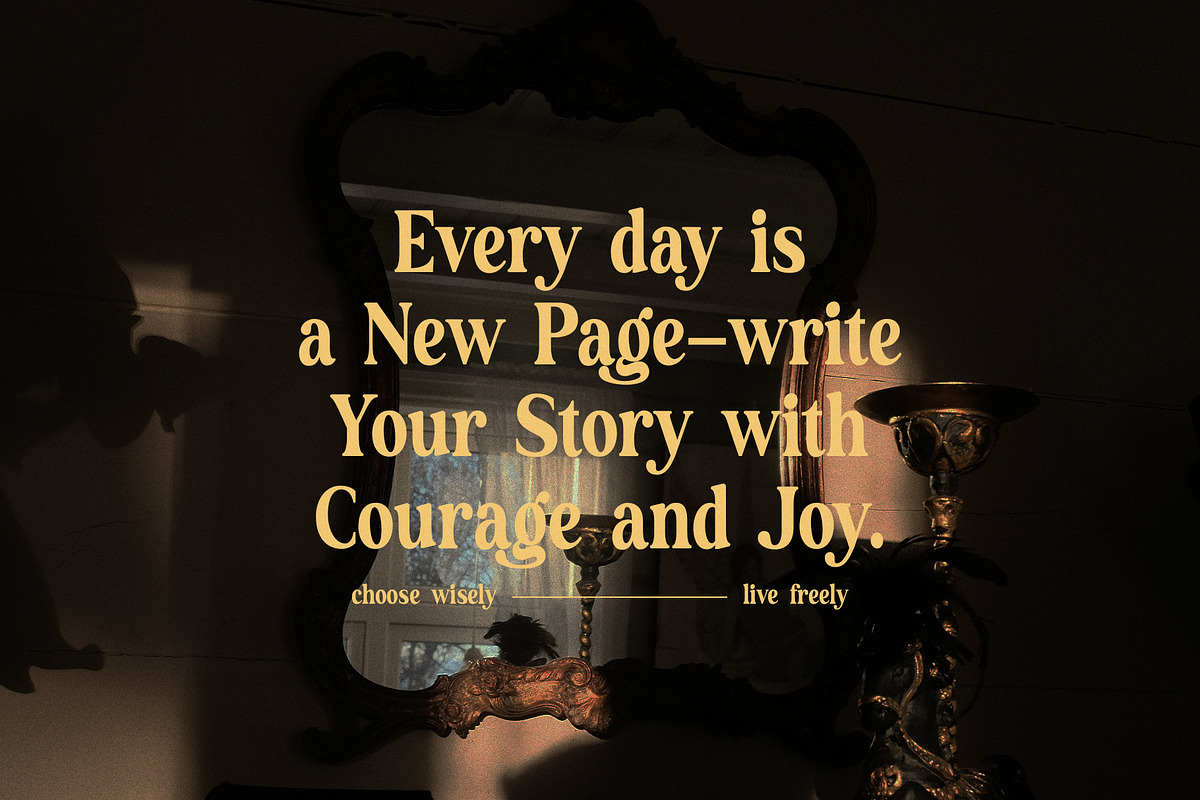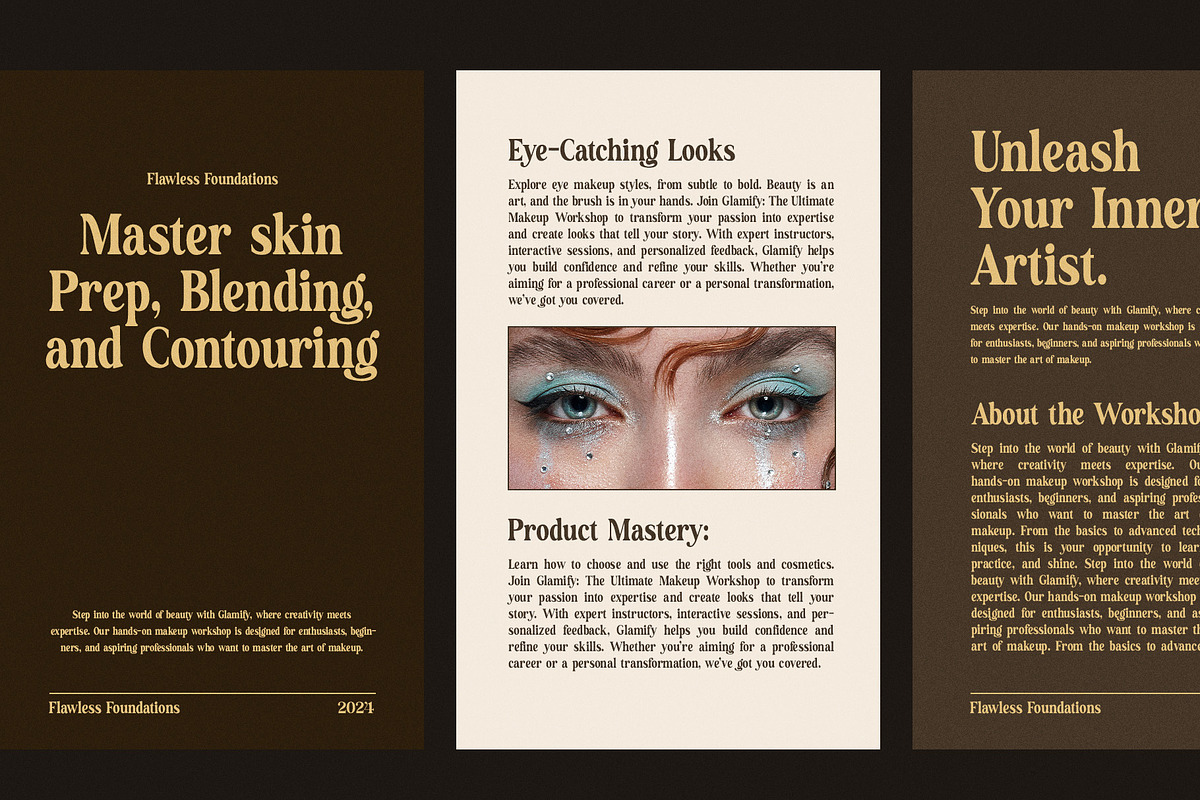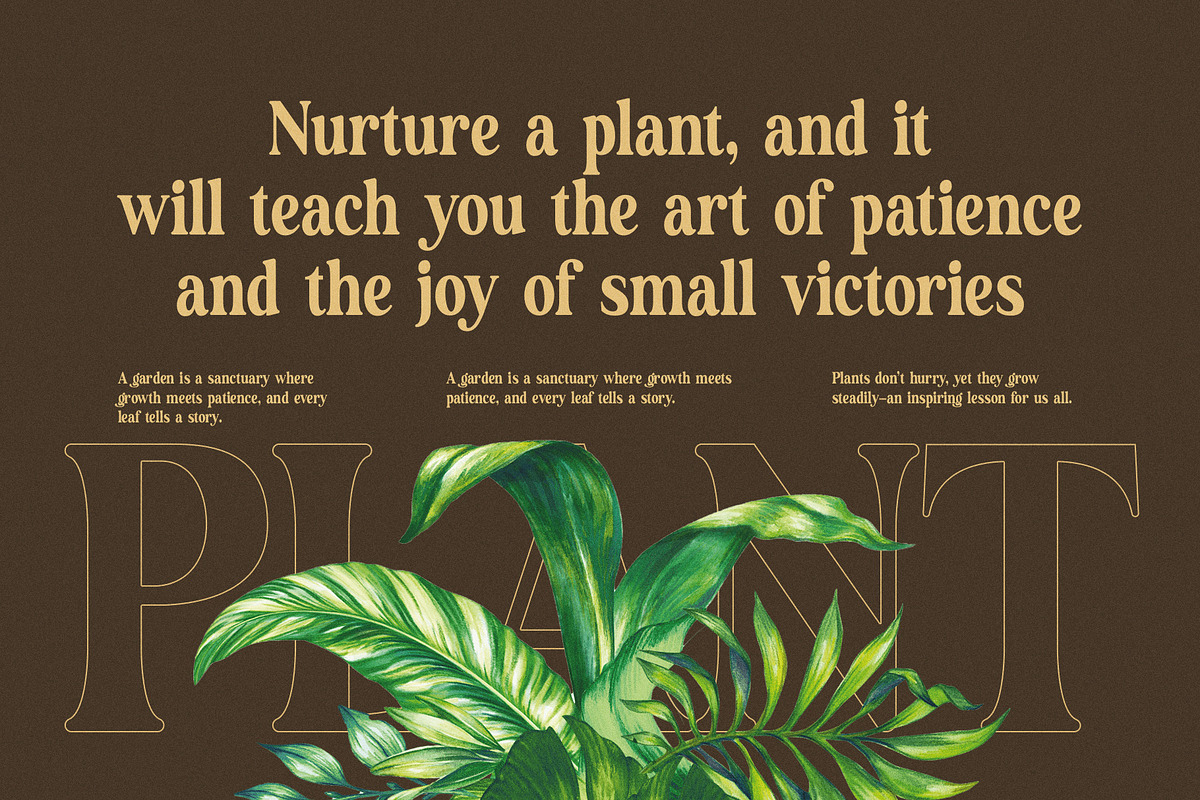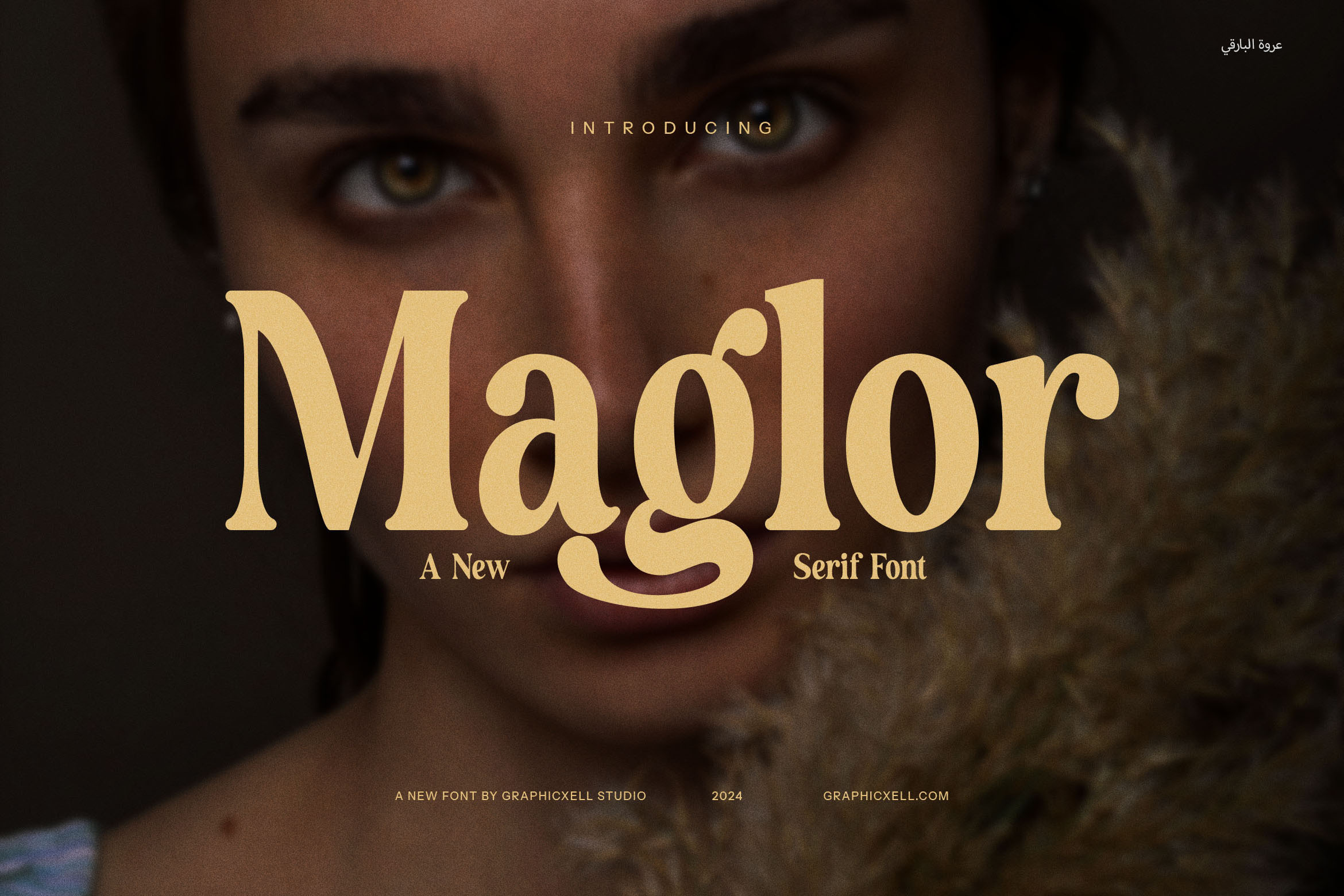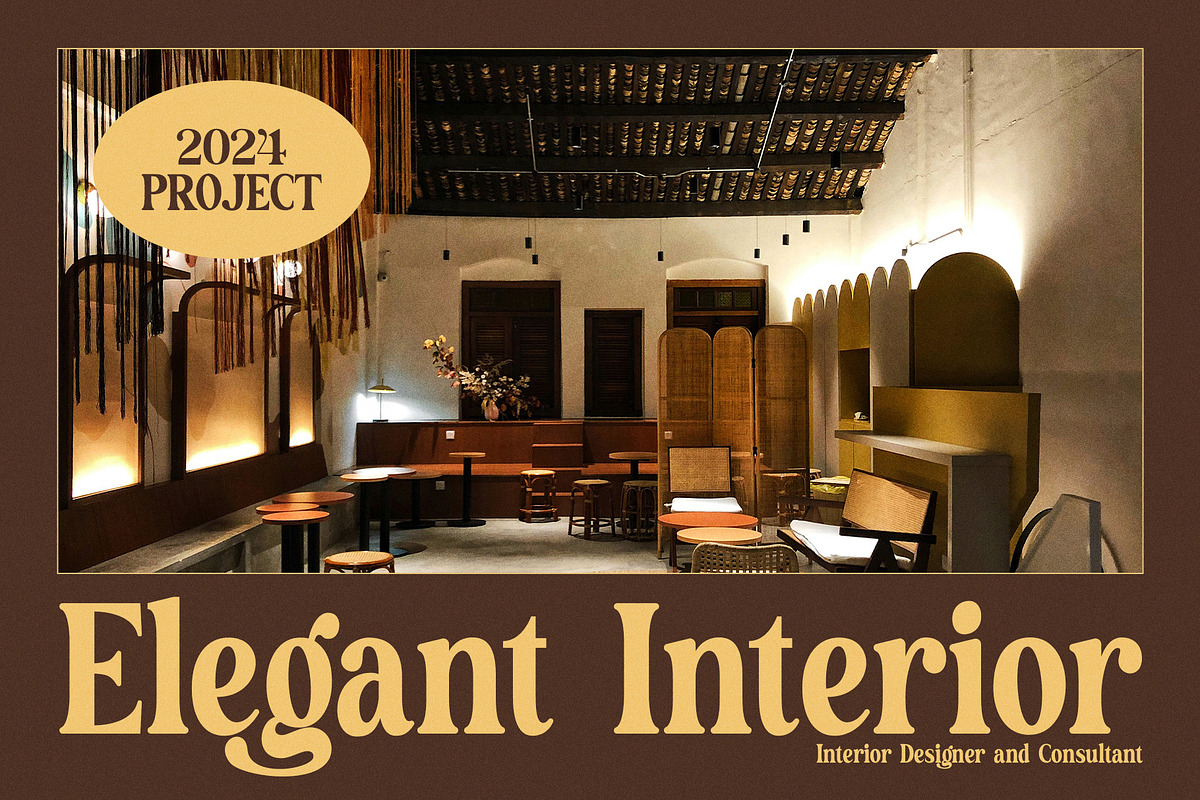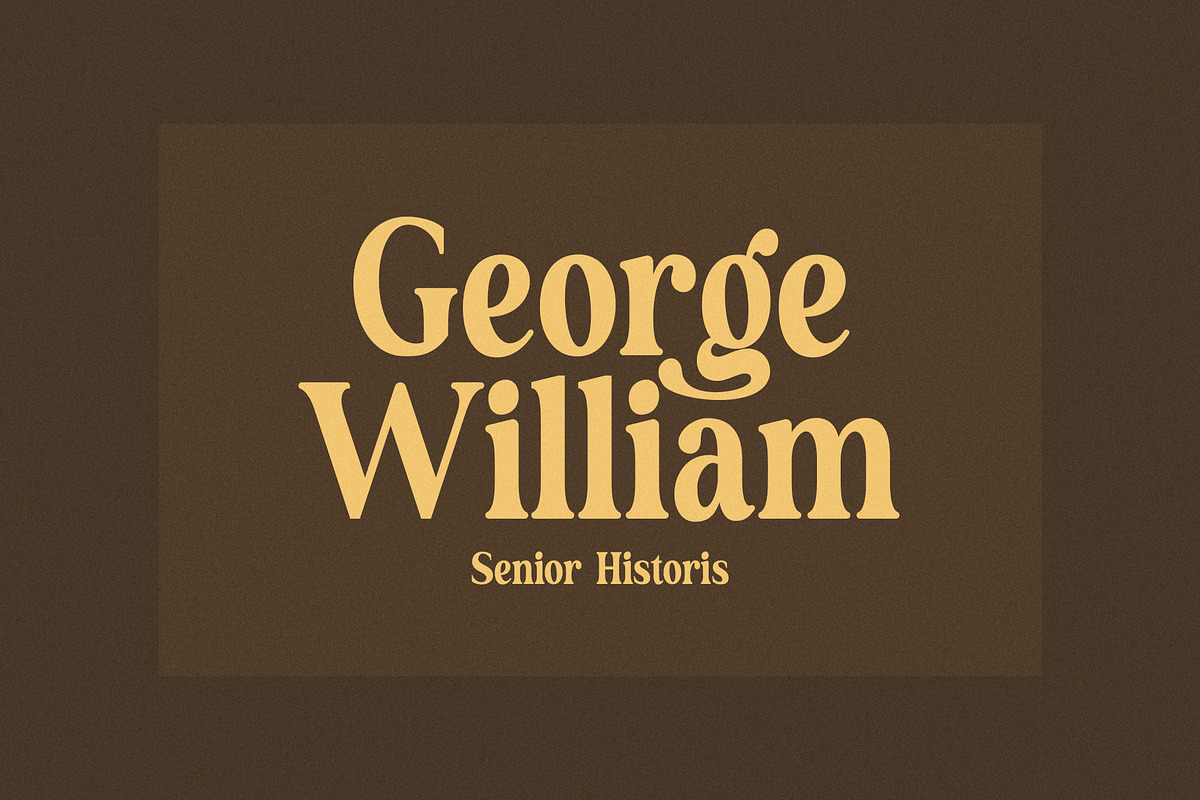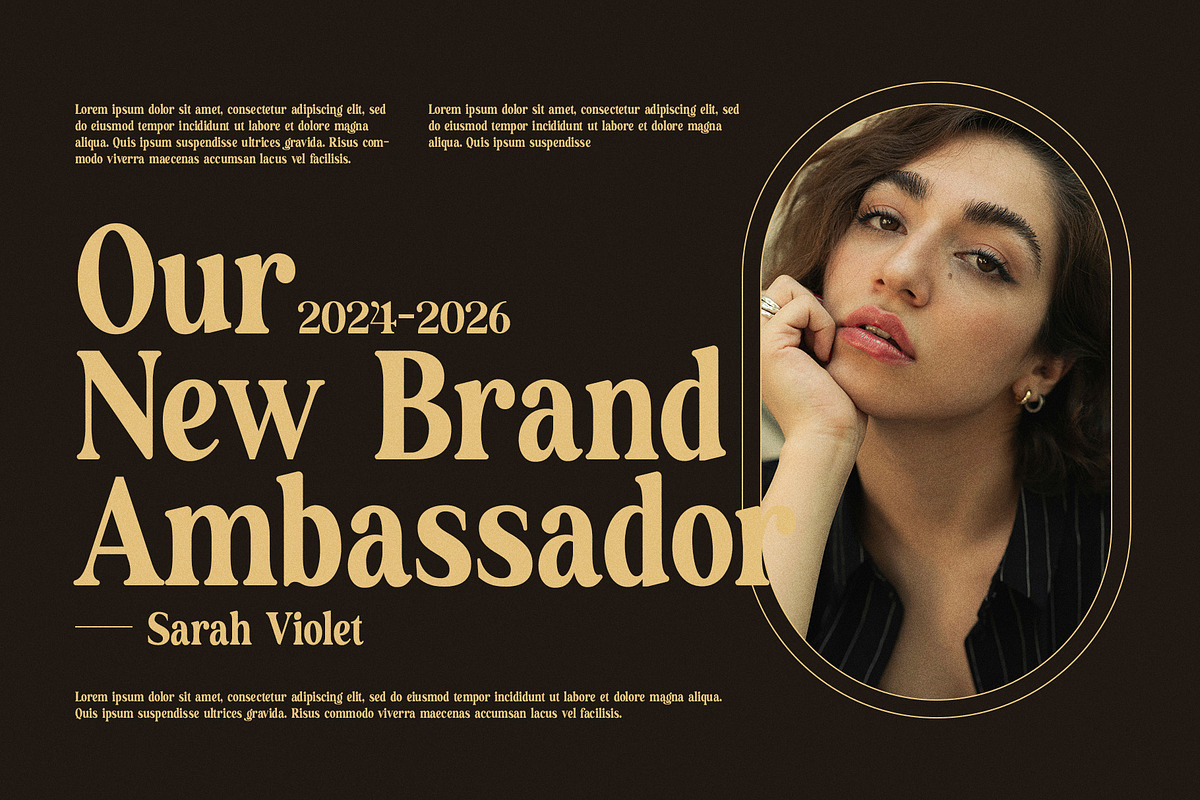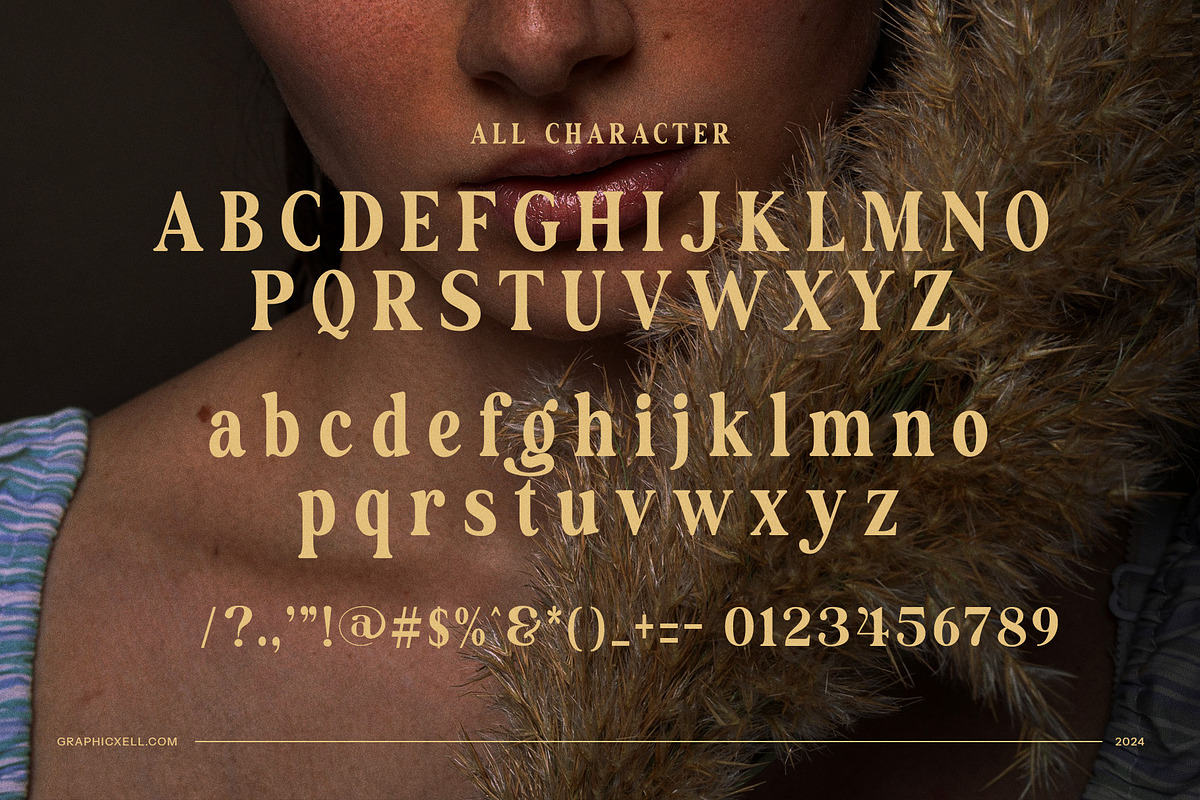
Maglor - Elegant Serif Font
Maglor Elegant Serif Font is a striking, modern serif typeface that exudes sophistication and charm. Its carefully crafted letterforms combine timeless elegance with contemporary flair, making it a perfect choice for a wide variety of design projects. Whether you're working on branding, logos, websites, or advertisements, Maglor brings an air of refinement and professionalism to any creation.
The font features bold, graceful serifs that enhance its readability and appeal. Its balanced proportions and distinct character shapes make it ideal for both print and digital platforms. From magazine layouts to product packaging, Maglor’s versatility ensures it shines across various media. Its luxurious design is especially suited for high-end brands, boutiques, food industry promotions, and any project that aims to evoke class and style.
Maglor Elegant Serif Font is not only beautiful but also highly functional, offering an exceptional user experience across different sizes and formats. It is perfect for creating memorable logos, chic web designs, elegant stationery, and standout advertisements. With its unique aesthetic, it stands out in a crowded design space while remaining approachable and easy to read.
Whether you’re designing a modern brand identity or a classic editorial spread, Maglor adds a touch of class and refinement that speaks to your audience. Elevate your next design with the elegance and versatility of Maglor Elegant Serif Font – the ultimate font for projects that demand both beauty and function.